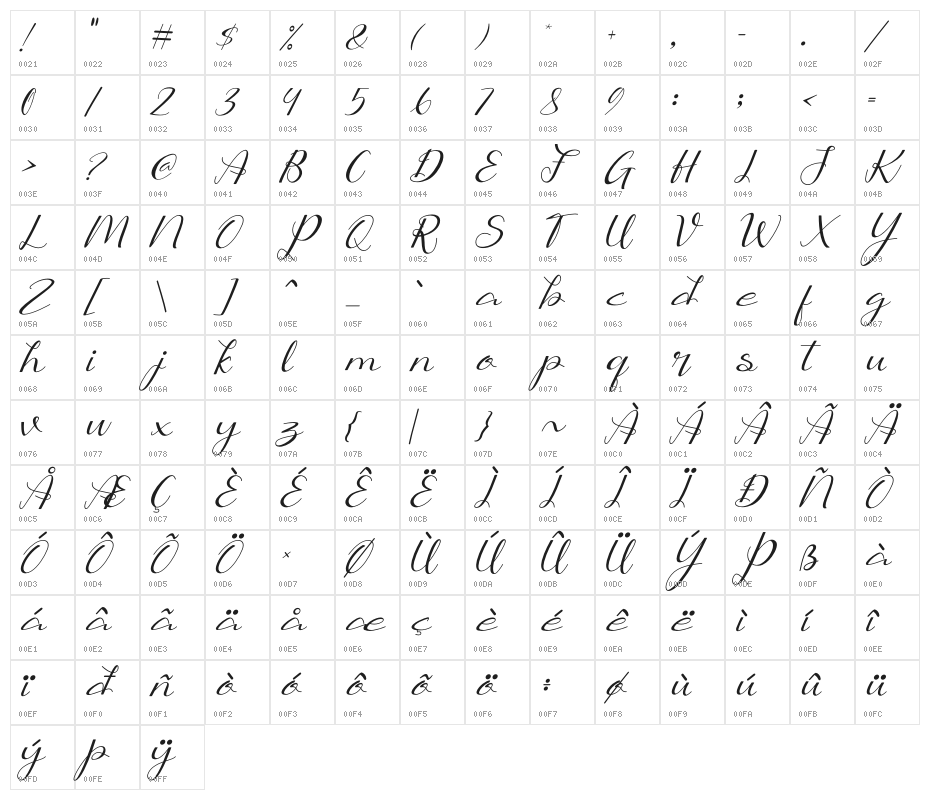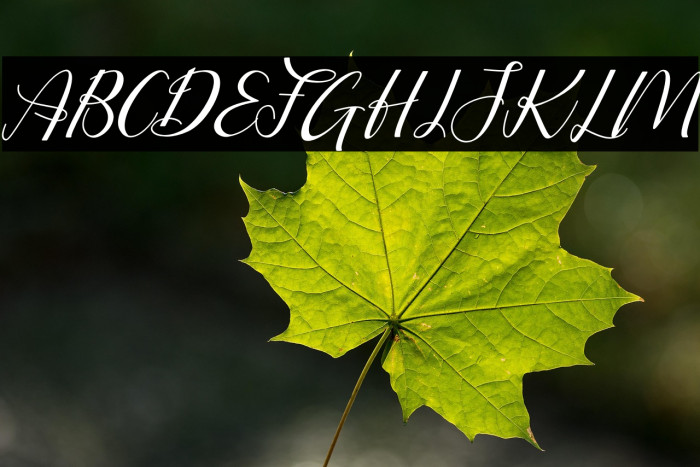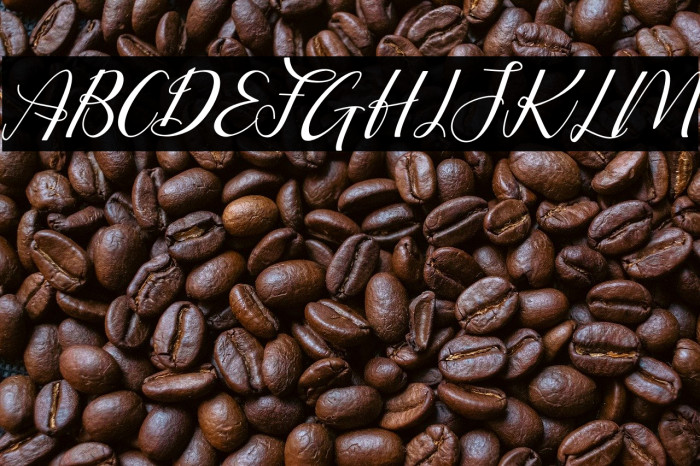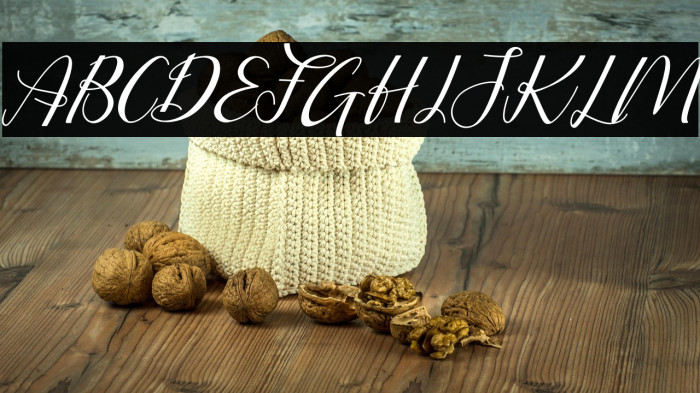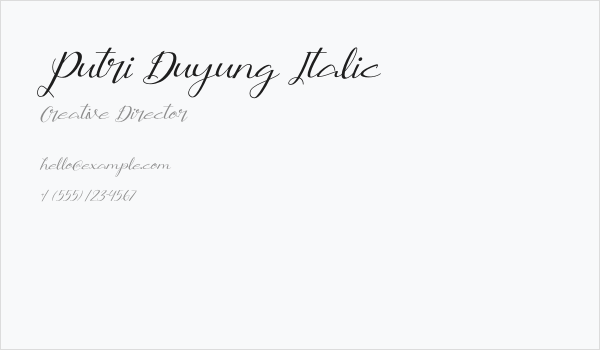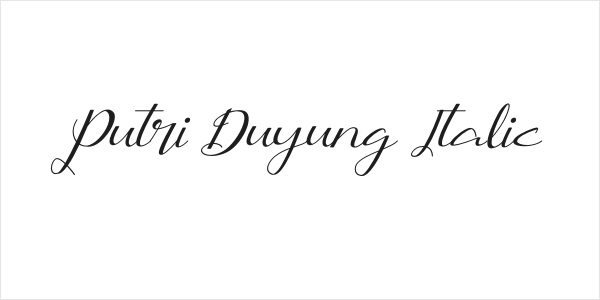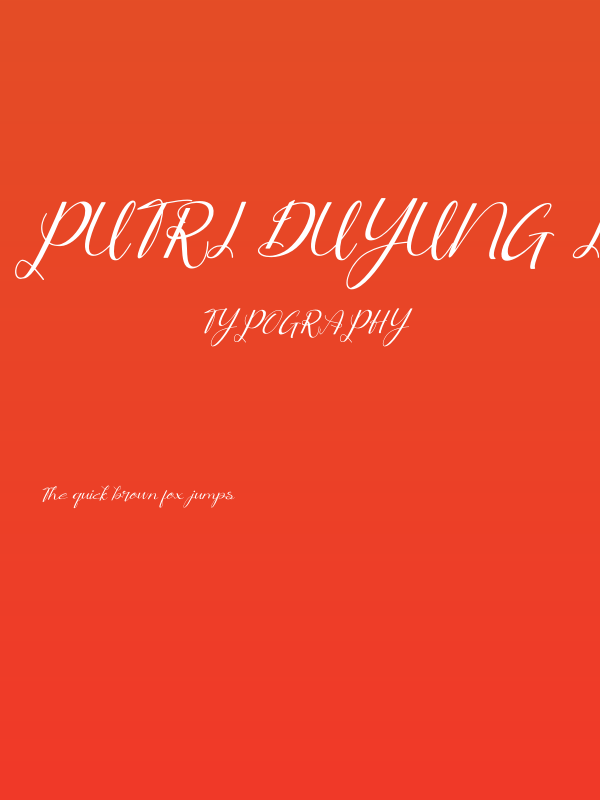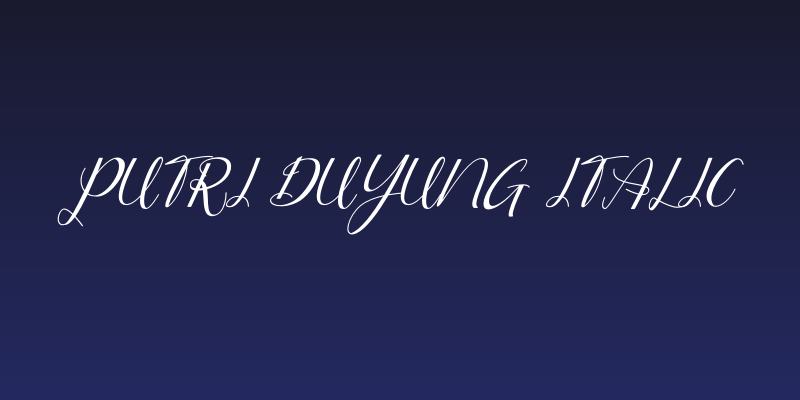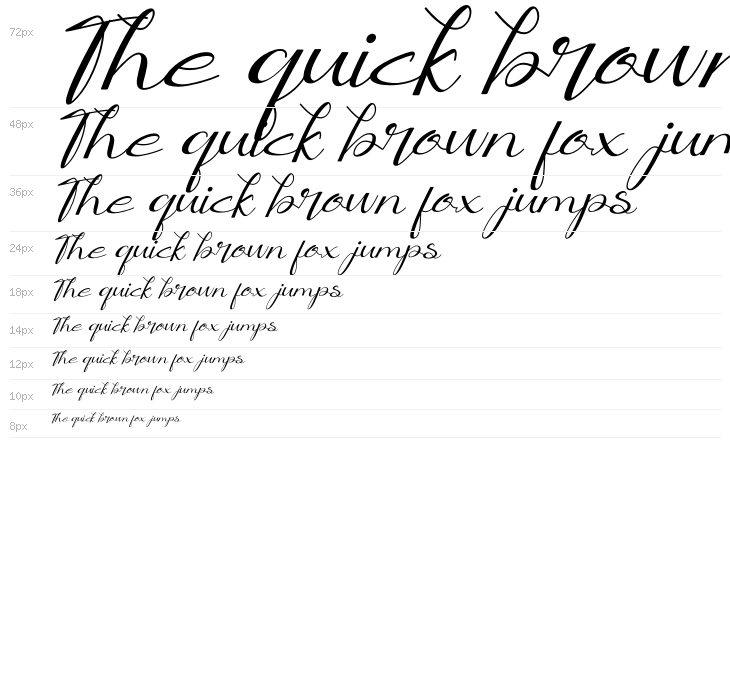
Putri Duyung Italic Font
Putri Duyung Italic Description
This font features an elegant and flowing script style, characterized by its italicized and cursive letterforms. The strokes are smooth and fluid, with a consistent slant that adds a sense of motion and grace. The uppercase letters are ornate, with distinctive loops and swirls, while the lowercase letters maintain a more restrained yet equally stylish appearance. The numerals and special characters are designed to complement the overall aesthetic, ensuring a cohesive look across all text elements. This font's sophisticated and artistic design makes it suitable for projects that require a touch of elegance and refinement.
| Use Case | Logos, Invitations, Decorative Text |
| Proposed Projects | Ideal for wedding invitations, greeting cards, elegant branding, and artistic posters. |